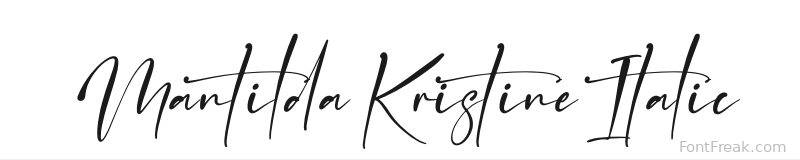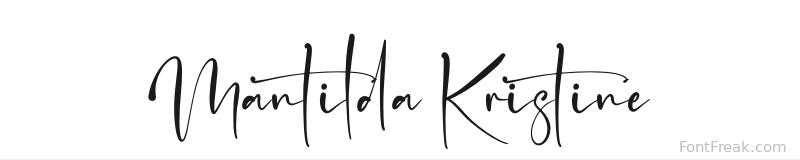
Mantilda Kristine
Mantilda Kristine Italic
About Mantilda Kristine
Mantilda Kristine is a striking script font designed by Perspectype Studio in 2021, characterized by its elegant and flowing forms. This font exemplifies a modern cursive style, making it an excellent choice for various creative projects. The strokes exhibit a graceful contrast between thick and thin lines, providing a dynamic visual appeal. The spacing is thoughtfully arranged to enhance readability while maintaining a stylish flair, making it suitable for both digital and print applications.
With its sophisticated, italicized design, the Mantilda Kristine font is perfect for a range of use cases. It shines in wedding invitations, where its romantic aesthetic can elevate any message. For branding purposes, small business owners can utilize this font in logos or promotional materials, ensuring a memorable impression. Additionally, it works beautifully for restaurant menus, adding an inviting touch to the dining experience. Graphic designers can incorporate it into social media graphics, creating visually engaging content that captures attention and conveys personality.
The target audience for Mantilda Kristine includes graphic designers, small business owners, and content creators looking for a versatile and stylish typeface. Its freeware license makes it accessible for anyone wishing to enhance their projects without incurring costs, making it an appealing option for budding designers or established professionals alike.
What sets the Mantilda Kristine font apart is its unique combination of elegance and versatility. Its flowing script captures a sense of warmth and personality, making it ideal for occasions where a touch of charm is desired. The Mantilda Kristine font free download offers a delightful option for those seeking to infuse their designs with a distinctive style that resonates with viewers. Whether for personal or professional use, this font is sure to leave a lasting impression.